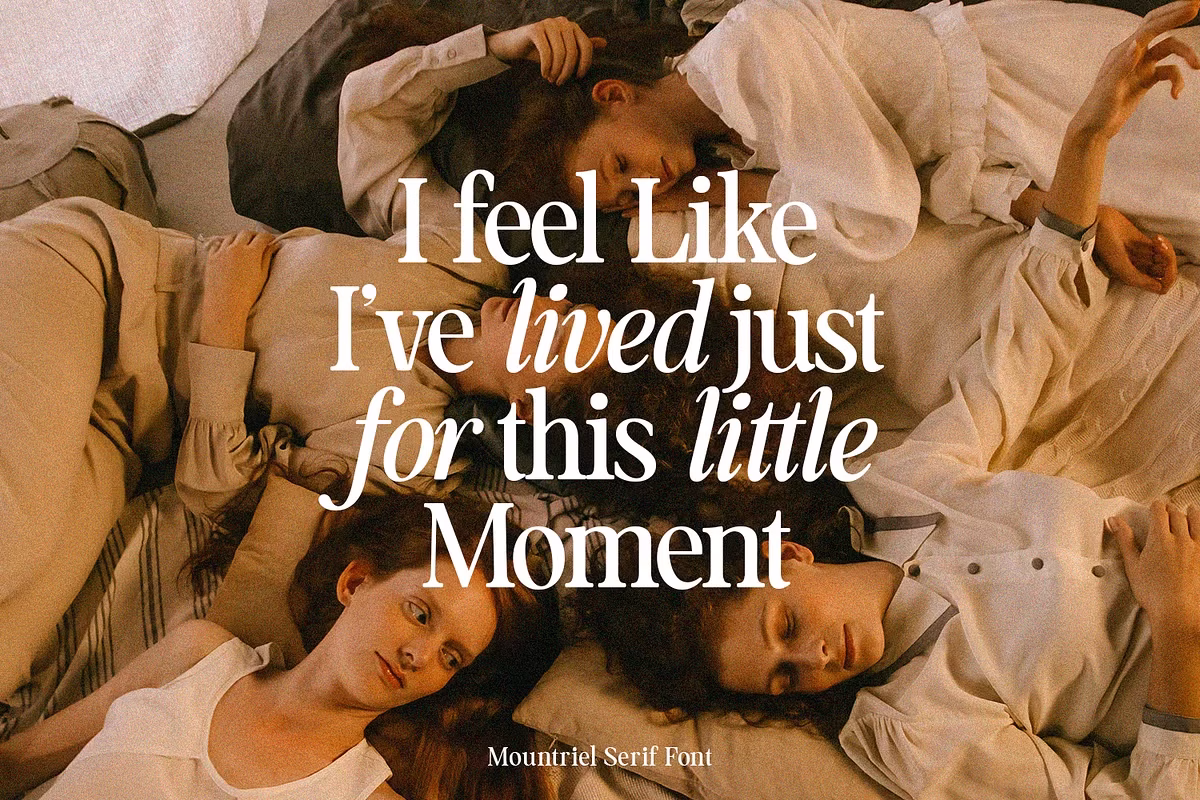
Mountriel - Classic ModernSerif Font Free Download
Mountriel Font Free Download is a timeless classic modern serif typeface that brings elegance, sophistication, and a high-end editorial feel to any design. With its sharp serifs, high contrast strokes, and graceful proportions, Mountriel is perfect for fashion branding, luxury packaging, magazine titles, invitations, and upscale web design.
Whether you're crafting a polished logo or a refined layout, Mountriel Font Free Download offers the perfect blend of tradition and modernity. Its clean lines and subtle flourishes make it versatile enough for both headlines and body text, while always maintaining a sense of elegance and authority.
Designed with attention to detail and readability, Mountriel enhances any project that demands sophistication. It pairs beautifully with minimalist sans-serif fonts and works well in both digital and print environments.